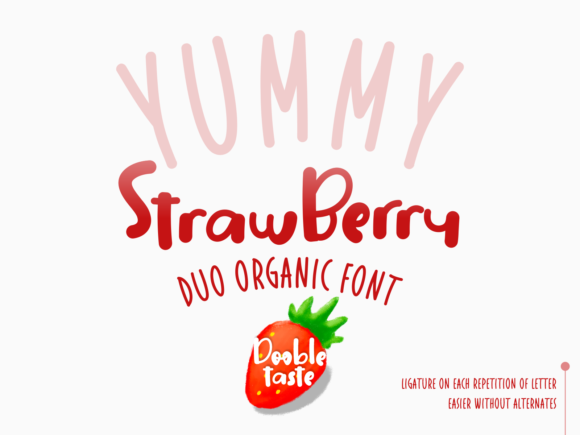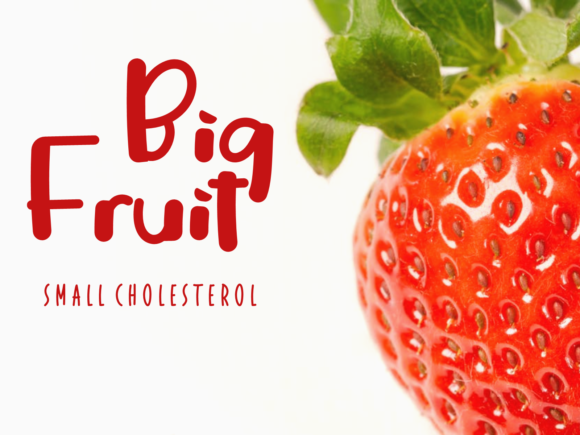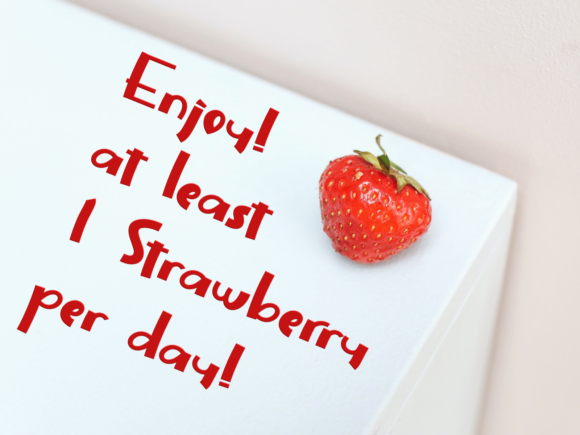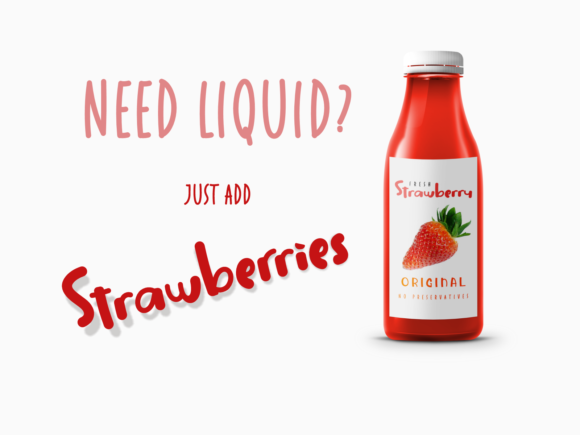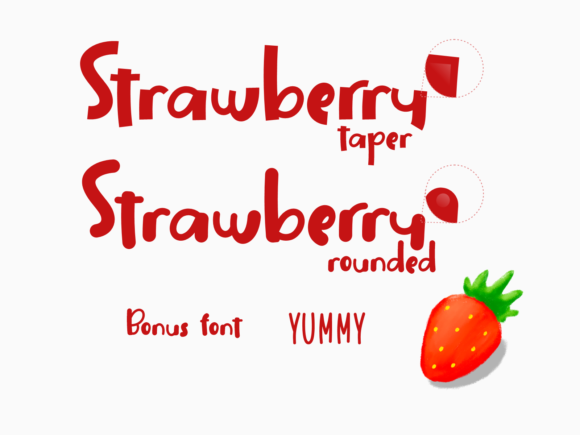
About Strawberry Font
Yummy Strawberry is a cute display and handwritten duo font with a casual and cute look. Clean and a little quirky, this font is perfect for all your logo, branding, social media, and crafty DIY projects.